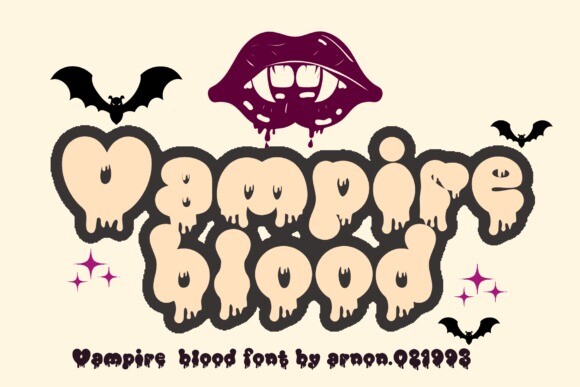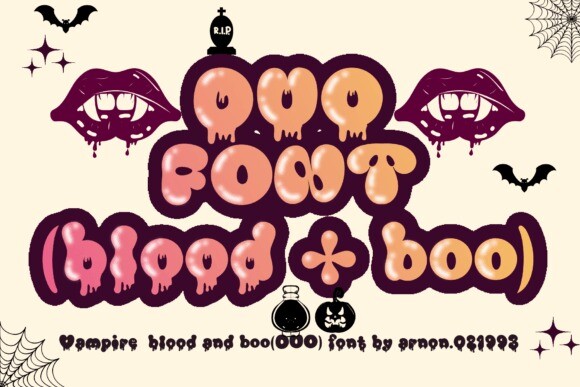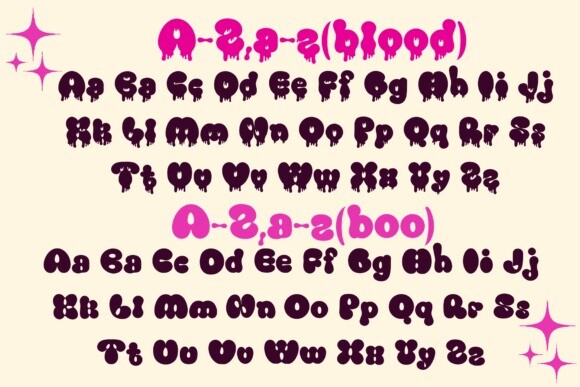
Vampire Blood Font
Vampire Blood Font is a playful and spooky display font that brings a ghoulish charm to your designs. The letters are filled with bubbly shapes, and each character has dripping blood, giving it a chilling and fun vibe. Perfect for Halloween-themed projects, horror parties, or anything that needs a touch of vampire-inspired excitement!